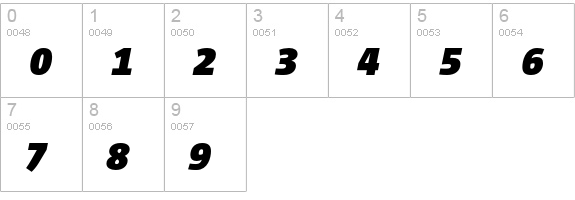
Corpid Caps Black Italic Font Details
Corpid Caps Black Italic is a maximum-weight, dramatic, italic variant in the Corpid typeface family \xE2\x80\x94 well suited to maximum-impact headlines, posters, and packaging.